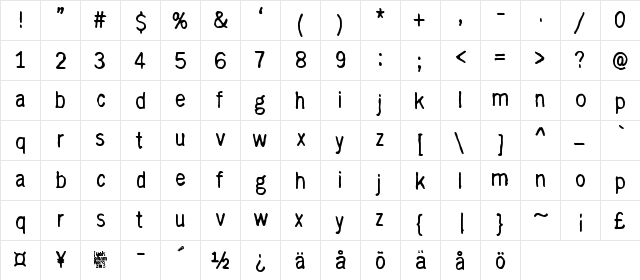
with righteous indignation, aga Regular
Design Context for with righteous indignation, aga Typeface
with righteous indignation, aga is a composed and adaptable typeface that performs quietly and consistently across a wide range of design contexts.